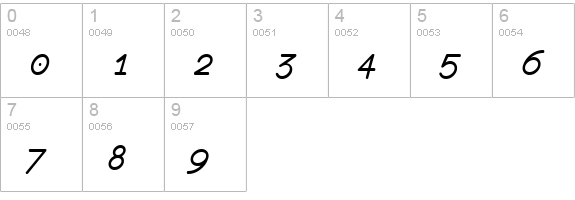
eurofurence italic is a distinctive, italic variant in the eurofurence typeface family \xE2\x80\x94 well suited to design and typography projects.
Eurofurence is a stylish and elegant font that exudes sophistication and modernity. Its sleek lines and contemporary design make it perfect for a wide range of projects, from branding to editorial design. The italic style adds a touch of flair and individuality to any text, making it stand out from the crowd. Best of all, Eurofurence is available for free download at FontsMarket.com. This means you can easily add this beautiful font to your collection without any cost. So why wait? Enhance your designs with Eurofurence today and bring a touch of sophistication to your work.